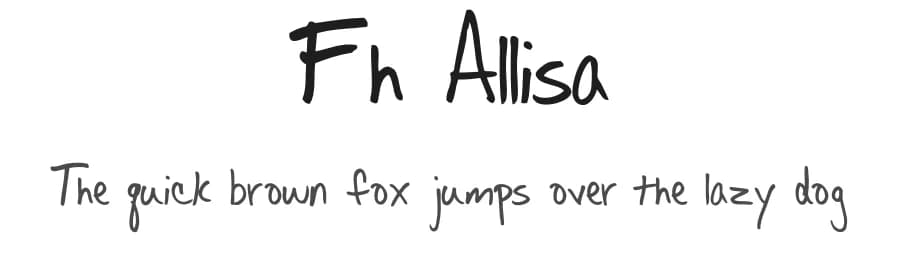
About Fh Allisa Font
Fh Allisa is a script & handwritten font designed by Fictionalhead Design. It includes 98 glyphs, a regular weight, OTF (CFF) format, and 104 languages. Fh Allisa is free to download; check the license details on this page before commercial use. Script & handwritten fonts like Fh Allisa work best for wedding invitations, greeting cards, signatures, and elegant branding.
Fh Allisa Font is a script font that shines as a display or heading face. Pair it with a clean sans-serif or serif font for body text β the contrast creates a clear hierarchy while the two styles stay balanced and easy to read.